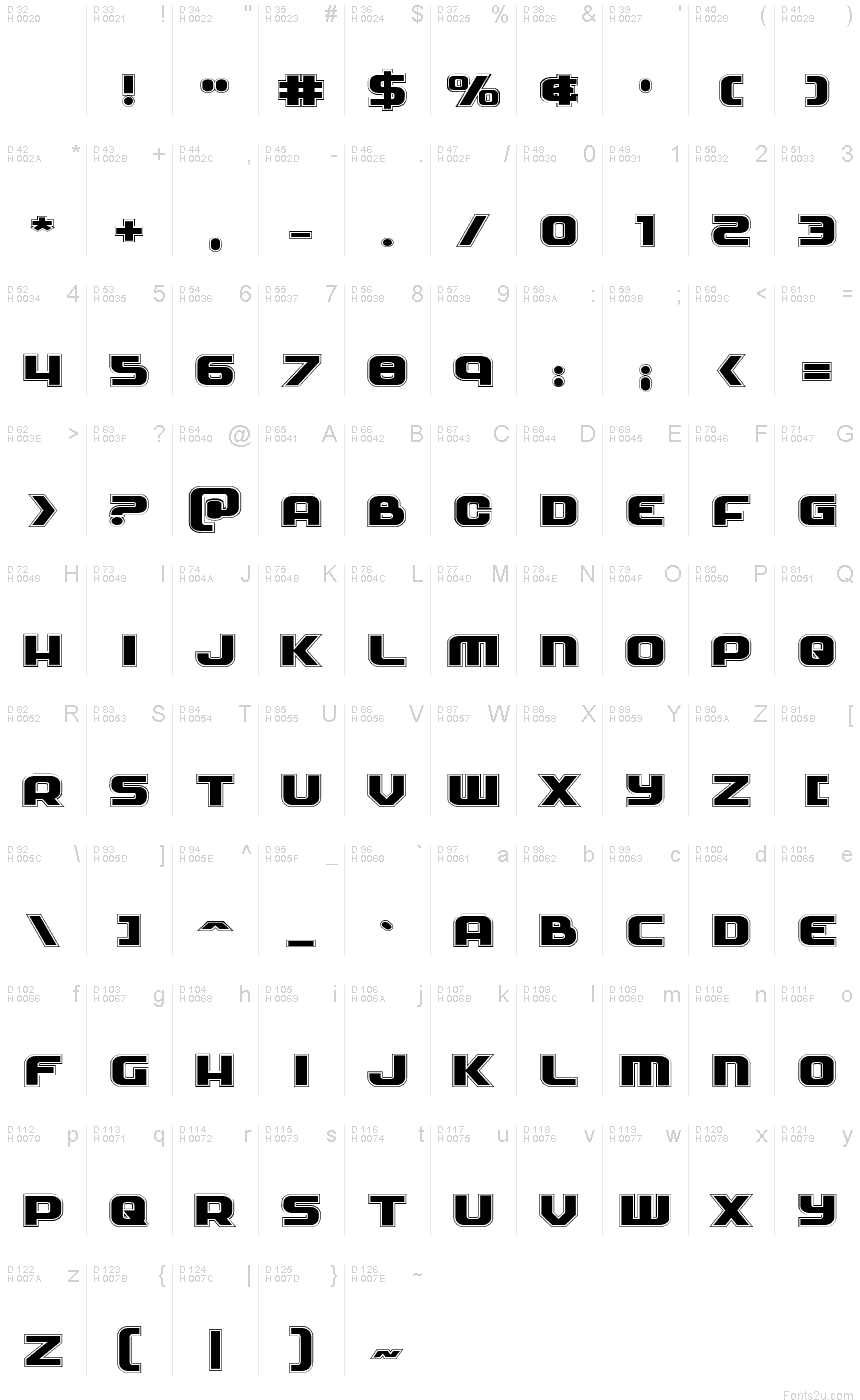
Soldier Academy Expanded by Daniel Zadorozny of Iconian Fonts is a free outlined display font with broad, weighty capitals and a hard-edged athletic build. Rounded outer corners soften the squared, tightly packed shapes.
It can create a forceful team emblem for sports branding, uniforms, and event posters, with the wide forms suggesting arena signage. In game graphics, the letters can become part of a badge or interface panel rather than serving as neutral text.
Soldier Academy Expanded